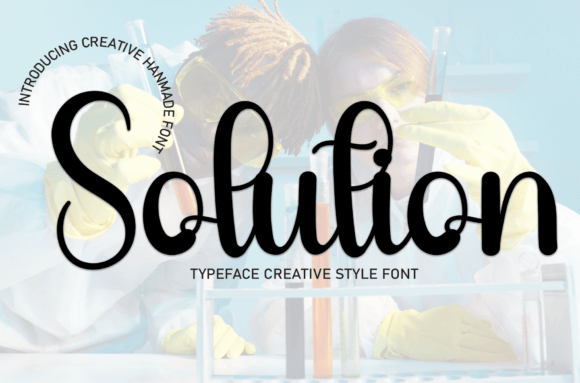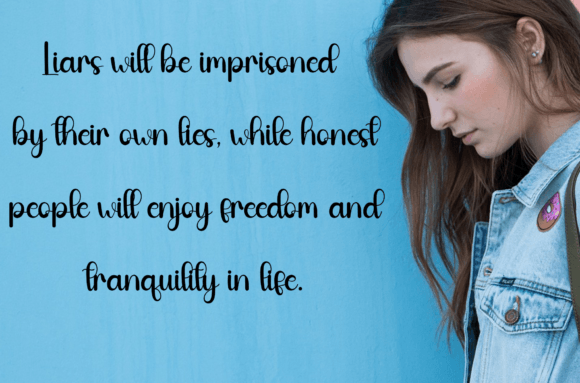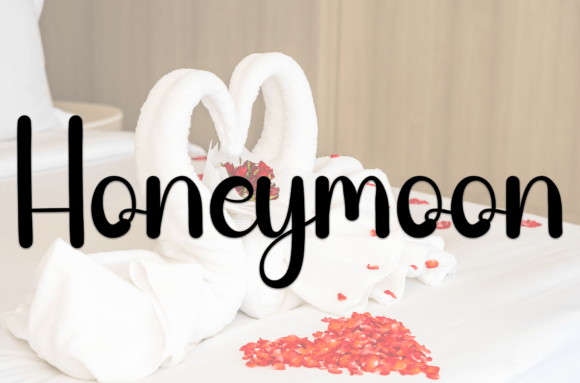
Solution
About Solution
Solution is a sweet and friendly handwritten font. Creative and cute, this font is ideal for writing wedding invitations, cards, or any other design that might need a fun touch!